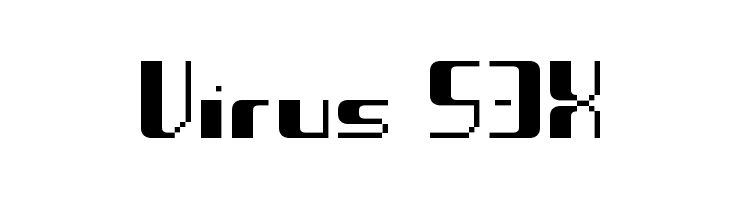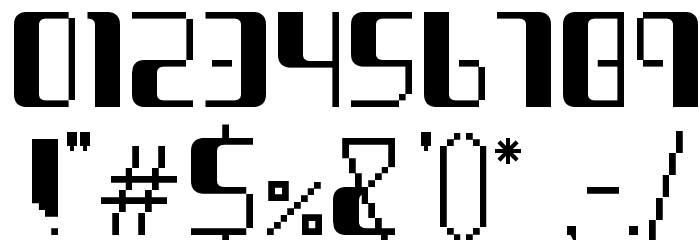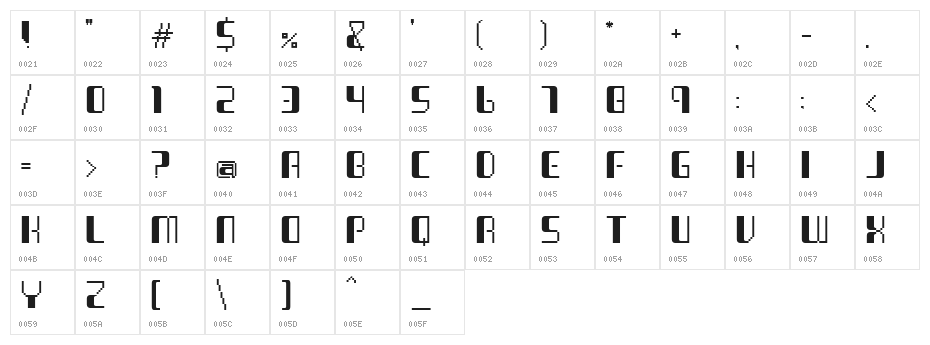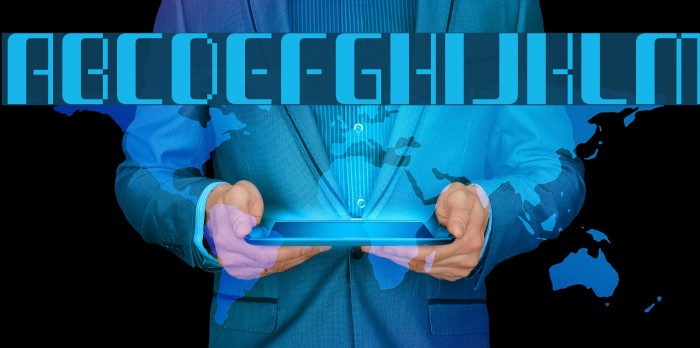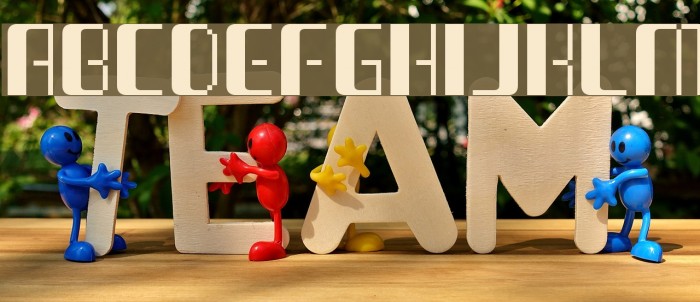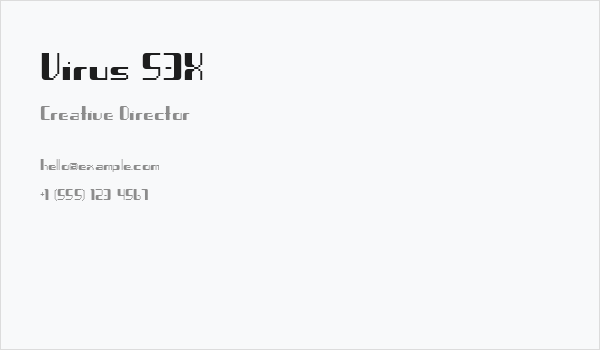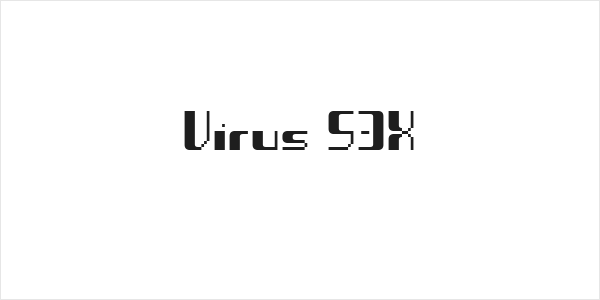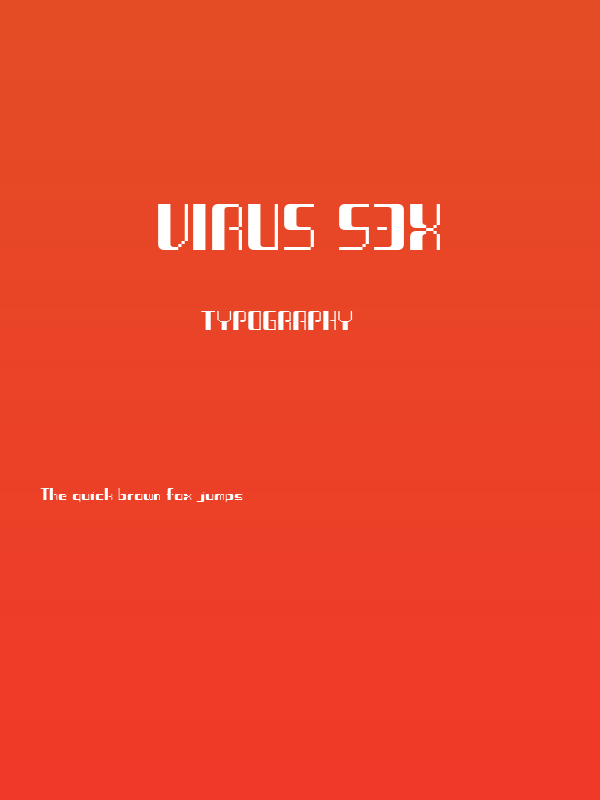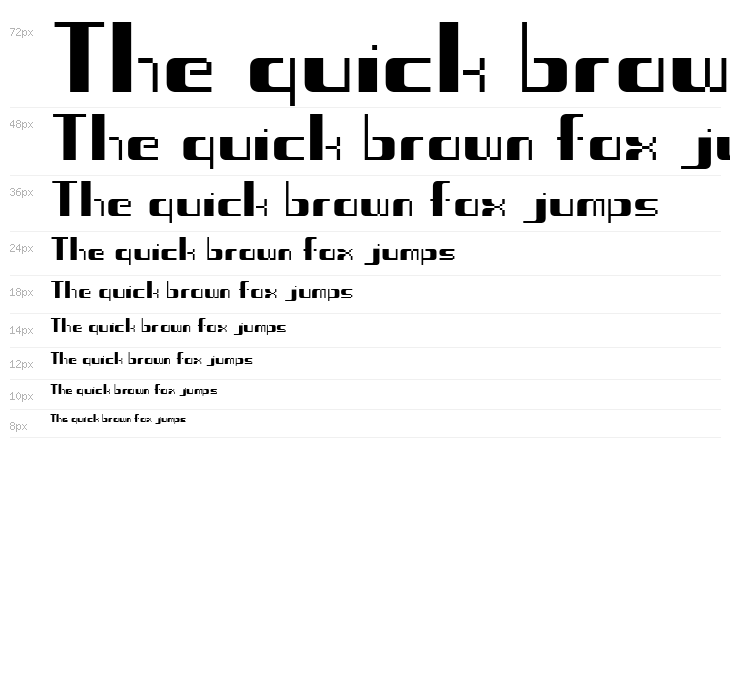
Virus 53X Font
Virus 53X Description
This font features a bold, futuristic design with a digital, pixelated aesthetic. The characters are constructed with a combination of solid and segmented strokes, giving them a unique, tech-inspired look. The uppercase letters are uniform in height, while the lowercase letters maintain a consistent style with slightly reduced size. The numerals and special characters follow the same design principles, ensuring a cohesive appearance across all glyphs. The overall style is modern and edgy, making it suitable for projects that require a digital or sci-fi theme. The font's geometric structure and sharp angles contribute to its distinctive appearance.